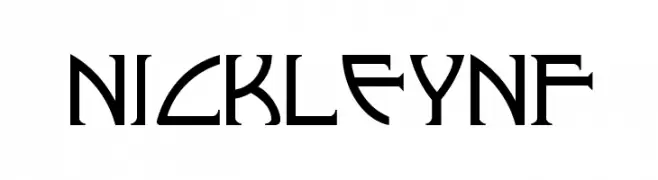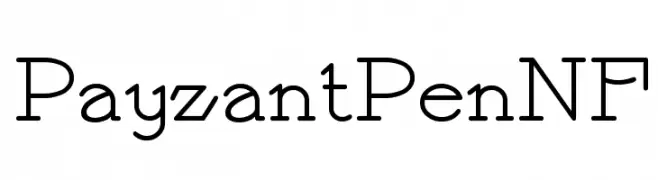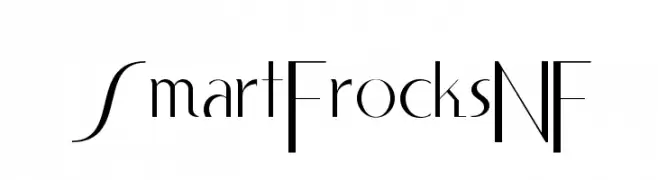
A bold, slab serif font with a vintage yet modern appeal.
A bold, geometric font with playful and dynamic character designs.
A bold, inline font with geometric and playful characteristics.
A bold, geometric font with a futuristic and dynamic style.
A bold, angular font with a futuristic and geometric design.
A bold, modern font with thick strokes and a strong presence.
An elegant and artistic font with flowing lines and decorative flourishes.
A bold, playful font with decorative swashes and high contrast.
A sophisticated font with a blend of classic and modern elements, featuring elegant curves and playful details.
Ornamental geometric border font with Art Deco influence.